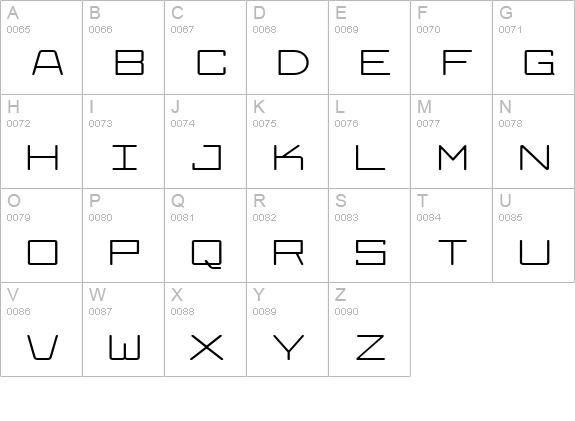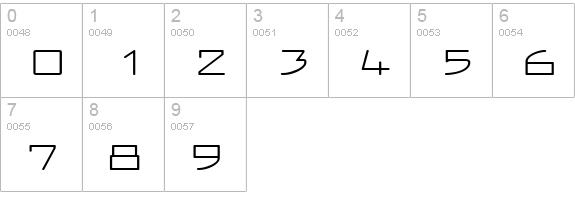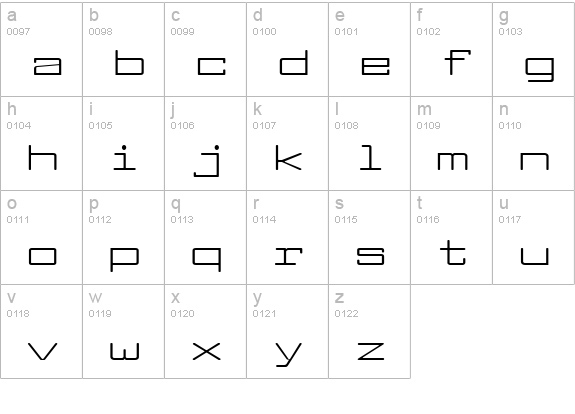
Larabiefont Xtrawide Font Details
Larabiefont Xtrawide is a modern and bold font that exudes confidence and style. With its extra wide spacing and sleek lines, this font is perfect for creating eye-catching designs that demand attention. Whether you're working on a poster, logo, or branding project, Larabiefont Xtrawide will make a bold statement. The best part? Larabiefont Xtrawide is completely free to download at FontsMarket.com. This means you can add this striking font to your collection without breaking the bank. Don't miss out on the opportunity to elevate your designs with Larabiefont Xtrawide's unique and impactful aesthetic. Download it today and let your creativity run wild!